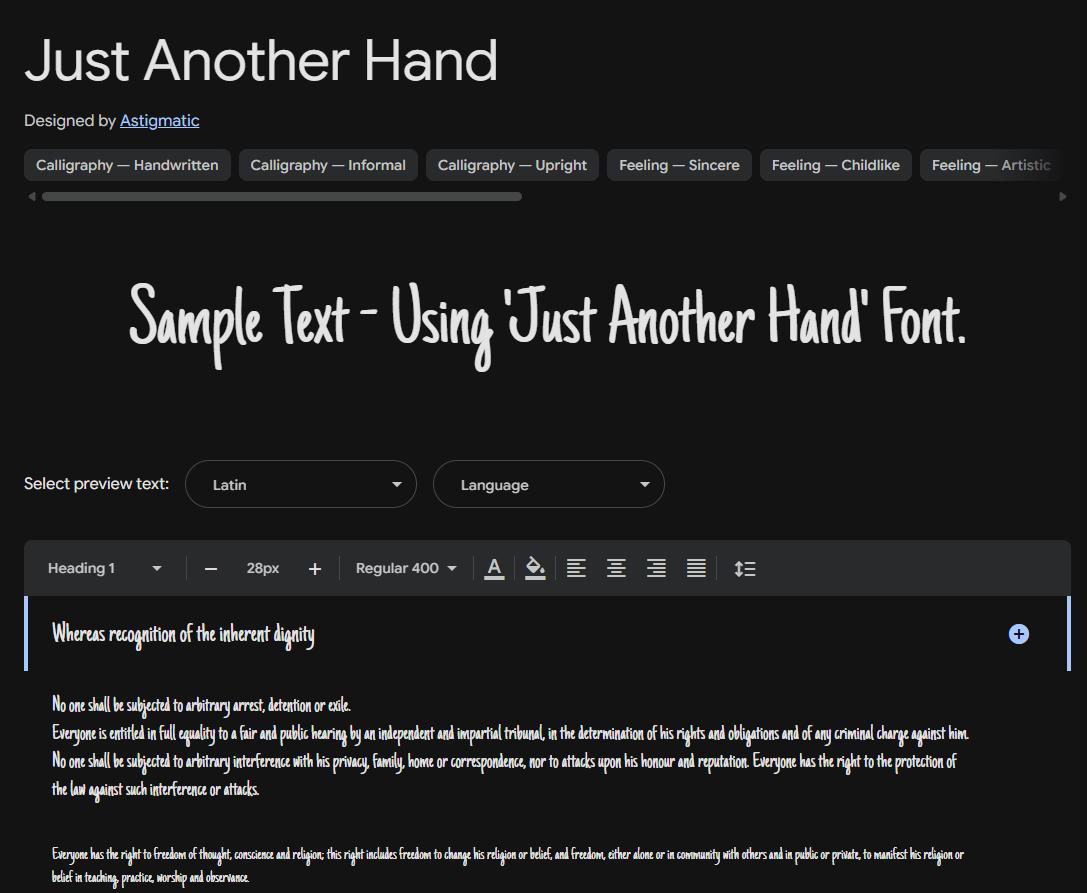
Just Another Hand, the singular-weight display face engineered by the Astigmatic One Eye Typographic Institute, synthesizes high-velocity felt-tip pen kinetics with digital font optimization to offer a unique solution for casual visual hierarchies. By utilizing an upright, condensed vertical rhythm and narrow apertures, this typeface maximizes spatial efficiency within responsive layouts while maintaining an organic, tactile aesthetic that contrasts sharply against the rigid geometry of standard sans-serifs. Its monolinear stroke distribution and idiosyncratic glyph variations ensure that the typeface functions not merely as a decorative layer, but as a semantically distinct tool for humanizing user interfaces through its informal baseline dynamics and rapid-tempo calligraphic origins.
Just Another Hand, a narrow-profile display face meticulously crafted by Kimberly Geswein, exemplifies a technical fusion of upright calligraphy and informal handwritten strokes, offering a semantically expressive alternative to rigid system fonts. This typeface leverages its high x-height and slender glyph architecture to project a sincere, artistic ethos that pivots seamlessly from a playful, childlike innocence to a more rugged, vintage authenticity. In the realm of contemporary typography, its condensed kerning and rapid-stroke aesthetic allow designers to curate a loud, excited visual hierarchy that feels simultaneously cute and happy, injecting an active, sincere personality into digital interfaces while maintaining the structural integrity of its distinct, upright calligraphic origins.
Just Another Hand, designed by Astigmatic, is fundamentally ill-suited for high-precision sectors such as legal, medical, or technical engineering due to its condensed, informal script architecture and irregular glyph endings. Because the typeface prioritizes a rapid, marker-drawn aesthetic over optical balance, it fails to meet critical WCAG accessibility thresholds for legibility in long-form body text or high-density data displays. In environments requiring maximum semantic clarity, the font's narrow proportions and minimal kerning pairs significantly increase cognitive load, making it an inappropriate choice for contractual fine print, safety-critical instrumentation, or corporate identities requiring an established sense of institutional authority and permanence.
This typeface excels in casual, organic, and informal design environments that prioritize a personalized, hand-sketched touch. Its narrow proportions and vertical stress facilitate a condensed footprint, allowing for high information density without sacrificing the visceral quality of hand-drawn glyphs.
This font is generally discouraged for extensive body copy as its irregular baseline and tall x-height can lead to significant reader fatigue. Legibility studies indicate that decorative scripts like this suffer from reduced character recognition speeds in blocks exceeding 100 words due to inconsistent stroke terminals.
Clean, geometric sans-serifs provide a balanced visual contrast against the fluid and idiosyncratic strokes of this handwriting style. Pairing with a low-contrast grotesque like Montserrat ensures structural stability, anchoring the design through distinct typographic hierarchy and disparate kerning profiles.
It performs exceptionally well when rendered in high contrast, as the sharp edges of the strokes remain crisp against dark or vibrant backgrounds. Maintaining a high luminance contrast ratio is vital because the font's varying line widths can otherwise succumb to "blooming" effects in lower-resolution rasterization.
While visually striking, it is best reserved for secondary messaging or creative headings rather than critical navigational signage. Atmospheric diffraction and viewing distance significantly degrade the legibility of its thin stroke weights, which lack the necessary stroke-to-counter-space ratio for long-range visibility.
The font remains remarkably clear on high-density displays if utilized at a sufficient point size to preserve its narrow apertures. At smaller viewports, sub-pixel rendering can struggle with the font's unique slant, making a minimum size of 18px essential for preserving glyph integrity on OLED screens.
Creative boutiques, independent cafes, and artisanal product lines benefit from the approachable and humanistic feel this font conveys. Market analysis shows that handwriting-style fonts increase brand warmth perceptions, utilizing organic path geometry to foster emotional resonance with niche consumer demographics.
It is better suited for casual events or modern "boho" wedding themes rather than traditional, high-formality galas. The absence of traditional copperplate flourishes or calligraphic ligatures limits its application in strictly formal contexts where high-stroke-contrast serifs are the standard.
Reducing the letter spacing too drastically causes the narrow glyphs to collide, creating a cluttered and illegible visual mass. Negative tracking values compromise the optical margins of the narrow characters, leading to a breakdown in word-shape recognition and increasing cognitive load for the viewer.
Its relatively thin and consistent stroke requires a drop shadow or a semi-transparent underlay to remain visible against complex imagery. Due to its monolinear construction, the font lacks the variable stroke thickness required to naturally stand out against high-frequency visual noise in RAW photography.